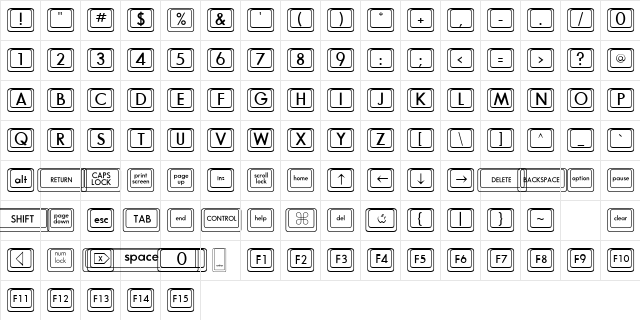
Keycaps 1 Normal
Design Context for Keycaps 1 Typeface
Keycaps 1 is a composed and adaptable typeface that performs quietly and consistently across a wide range of design contexts.